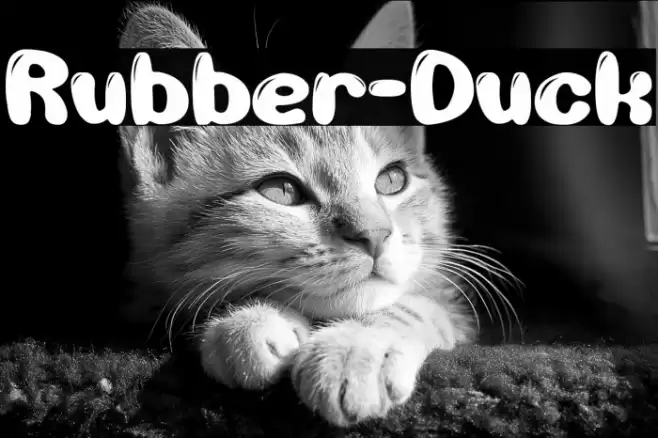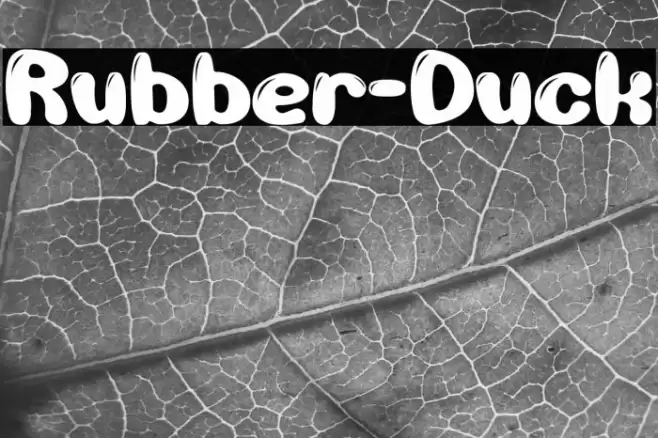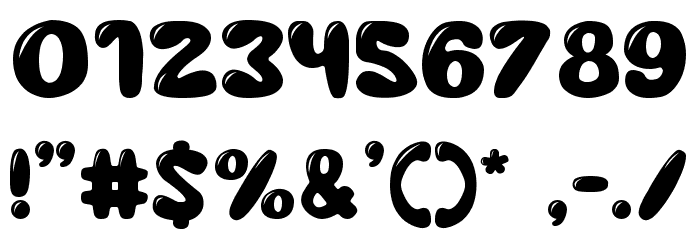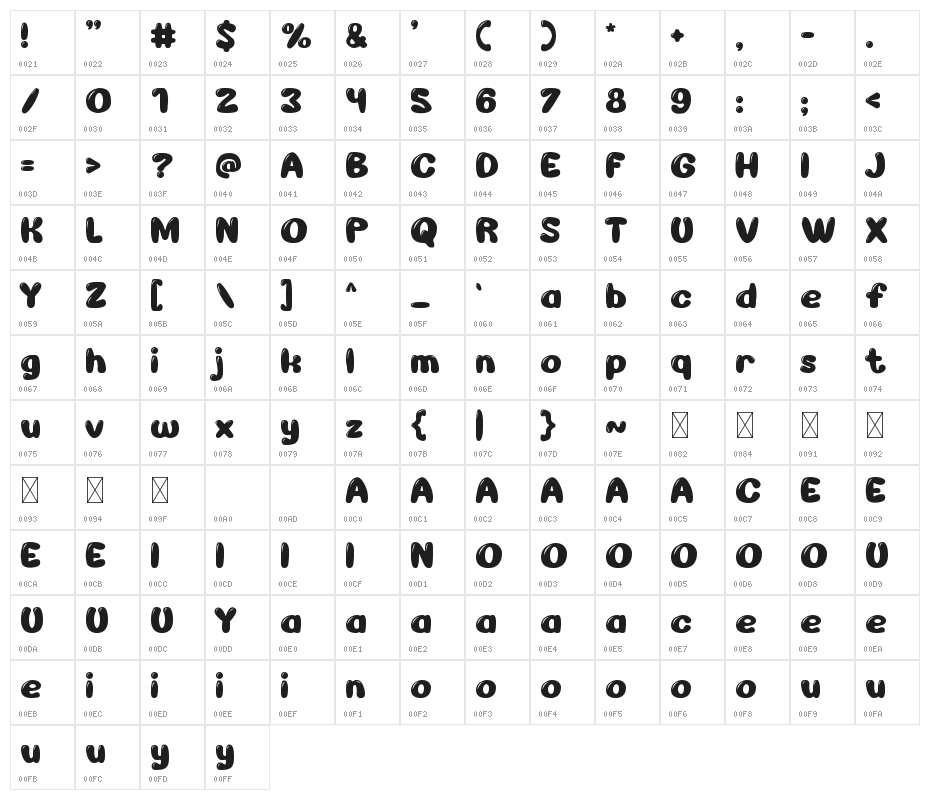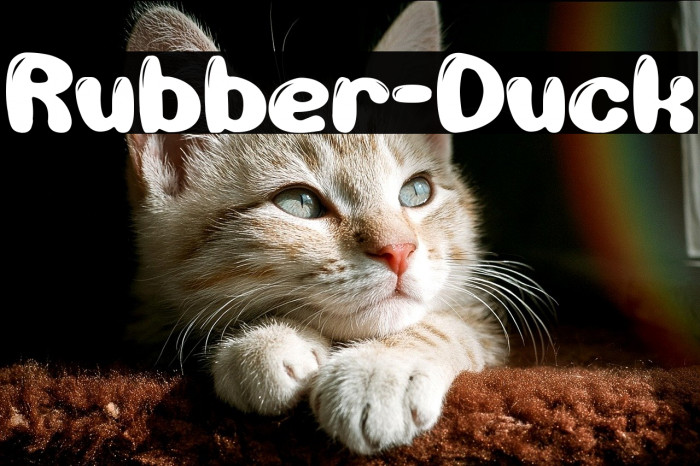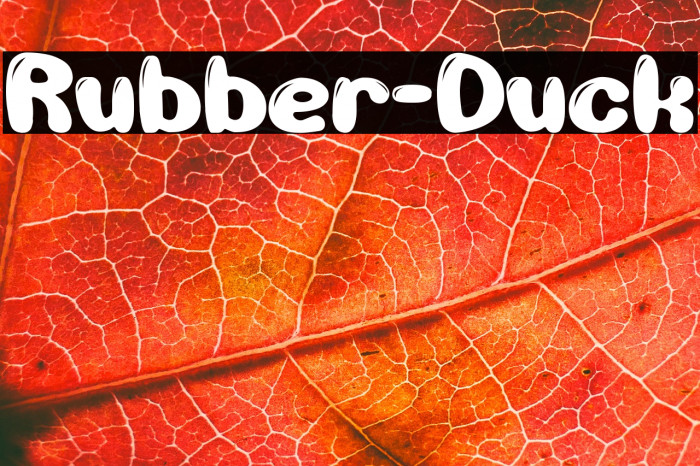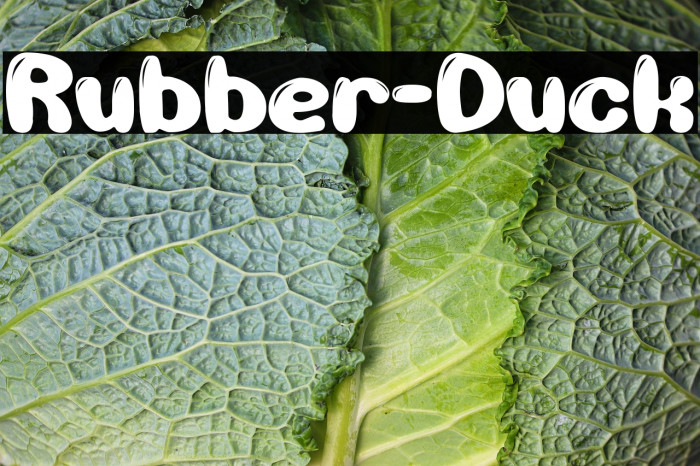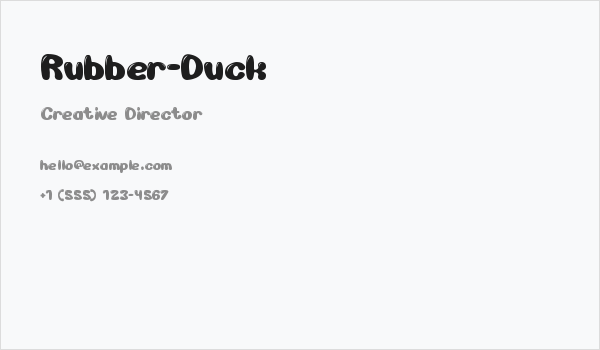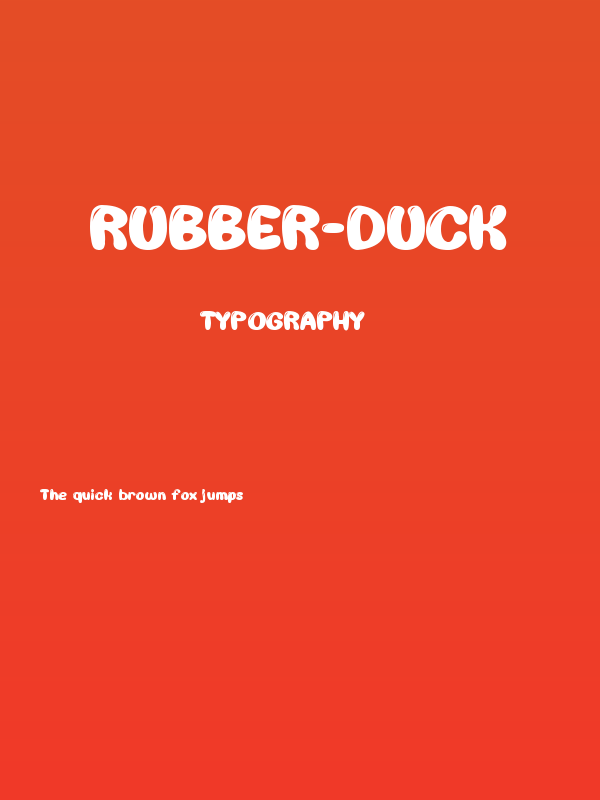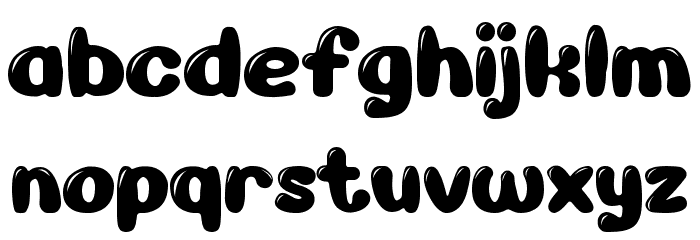
Rubber-Duck Font
Rubber-Duck Description
This playful and bold font features rounded, bubble-like characters that convey a sense of fun and whimsy. The letters are thick and have a soft, inflated appearance, reminiscent of rubber or balloons. Each character is well-defined, with a consistent stroke width that adds to the overall uniformity and balance of the design. The font's style is highly decorative, making it ideal for projects that require a touch of humor or lightheartedness. Its unique appearance ensures that it stands out, making it suitable for eye-catching headlines or creative branding materials.
A playful, bold font with rounded, bubble-like characters ideal for fun, decorative projects from Kids fonts.
- Proposed Projects: Perfect for children's book covers, playful branding, party invitations, or any design needing a whimsical touch.
- Overall Style: Playful, Whimsical
- Use Case: Headlines, Logos, Decorative Text